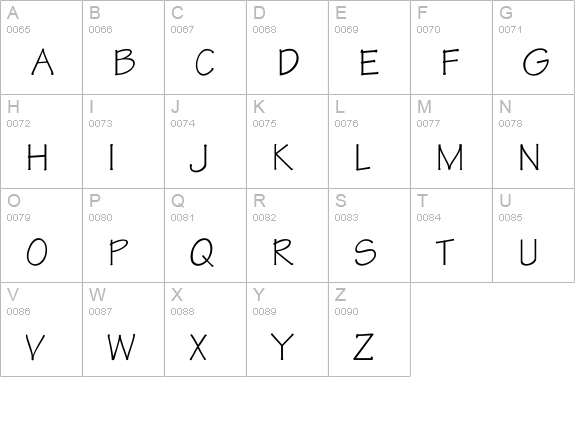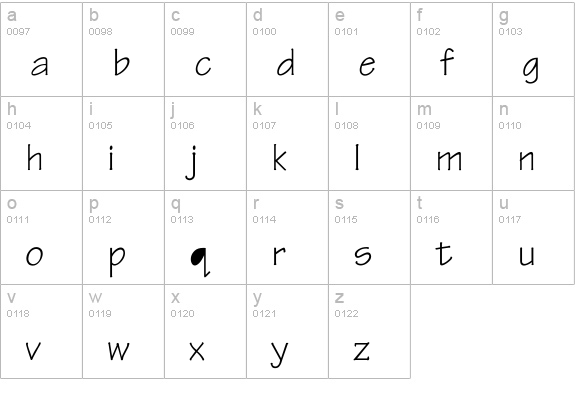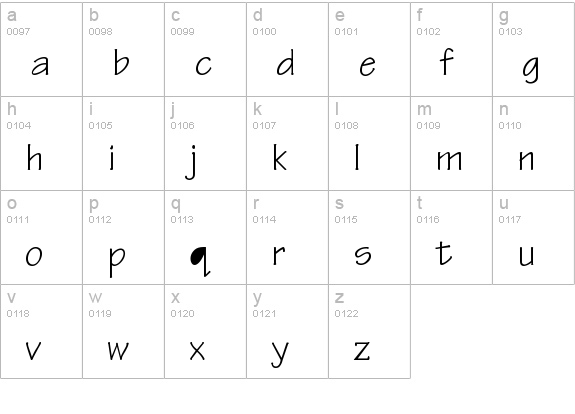
Tontil Font Details
Tontil font is a versatile and stylish typeface that will bring elegance and sophistication to your design projects. With its clean lines and modern aesthetic, this font is perfect for adding a touch of professionalism to any project. Featuring a wide range of weights and styles, Tontil font offers endless possibilities for creative expression. Whether you're designing a logo, creating a brand identity, or crafting eye-catching headlines, this font will make a lasting impression. One of the best features of Tontil font is that it is completely free to download. That's right, you can get your hands on this stunning font without spending a dime. Simply head over to FontsMarket.com and grab your copy today. With Tontil font, you don't have to sacrifice quality or style for affordability. Not only is Tontil font free, but it is also incredibly easy to use. Its legibility and readability make it perfect for both print and digital applications. Whether you're working on a magazine layout, a website design, or even a social media graphic, Tontil font will ensure that your message is clear and impactful. This font is designed with versatility in mind. It can be used for both formal and informal projects, making it suitable for a wide range of industries and purposes. From elegant wedding invitations to sleek corporate presentations, Tontil font is the perfect choice. Don't miss out on the opportunity to enhance your design projects with this exceptional font. Download Tontil font for free at FontsMarket.com and elevate your designs to new heights. With its stylish aesthetic, wide range of styles, and affordability, Tontil font is a must-have for any designer or creative professional.